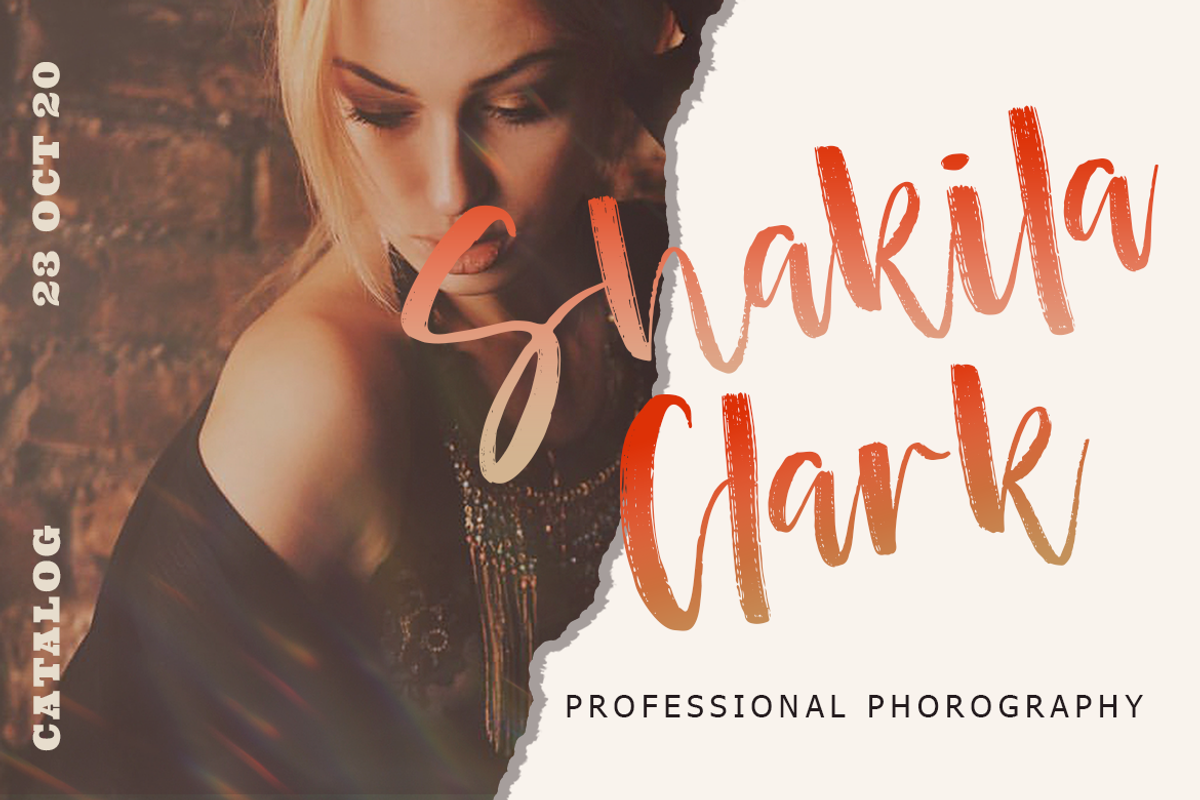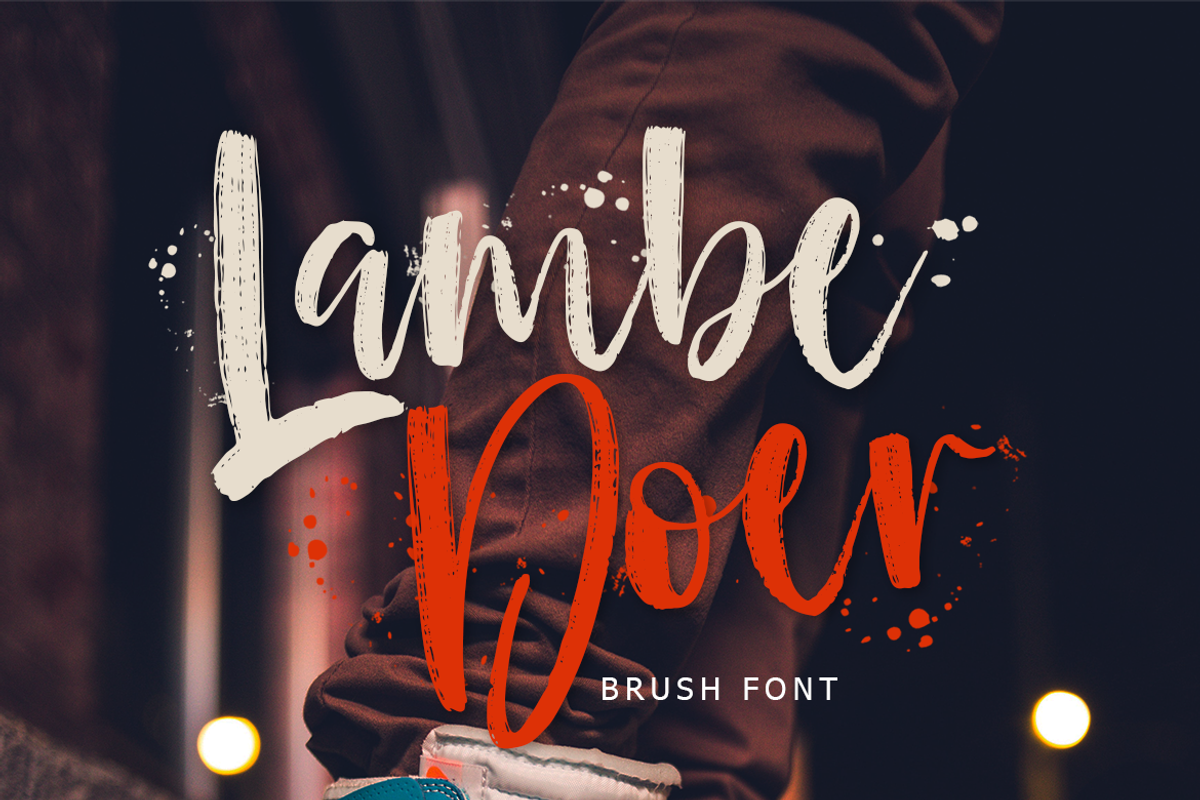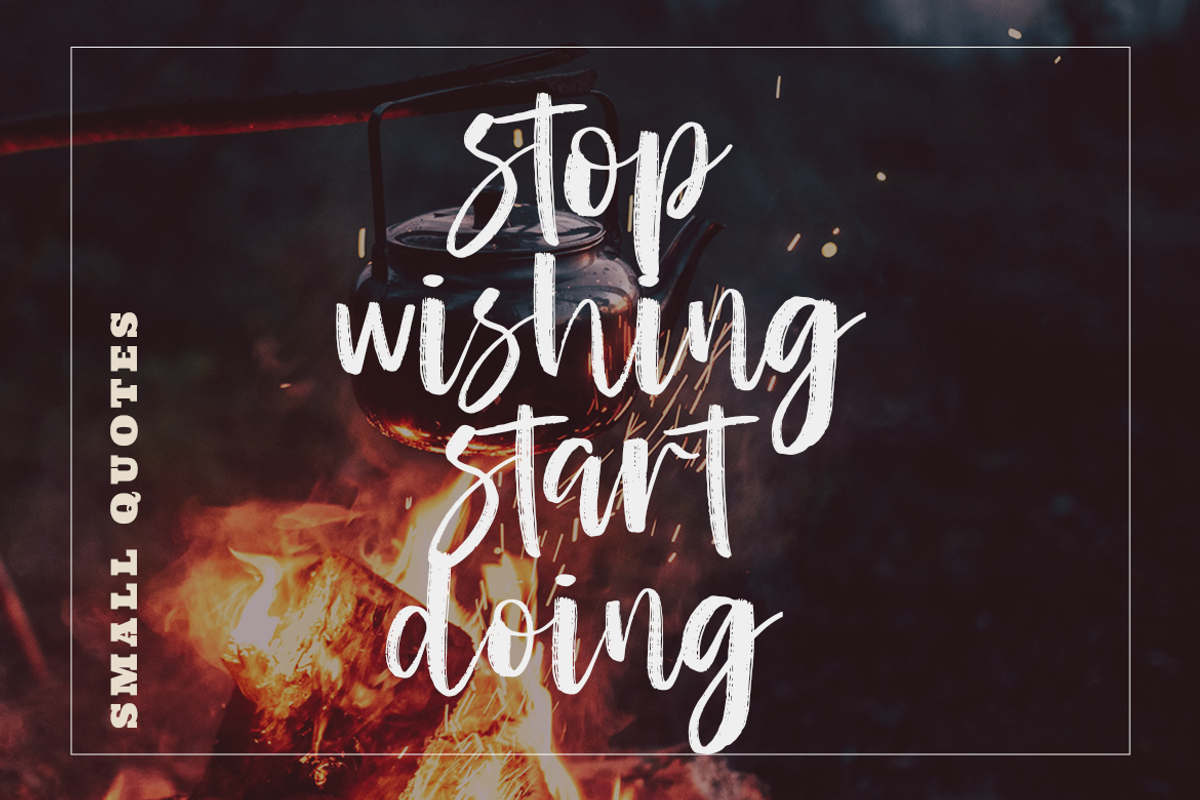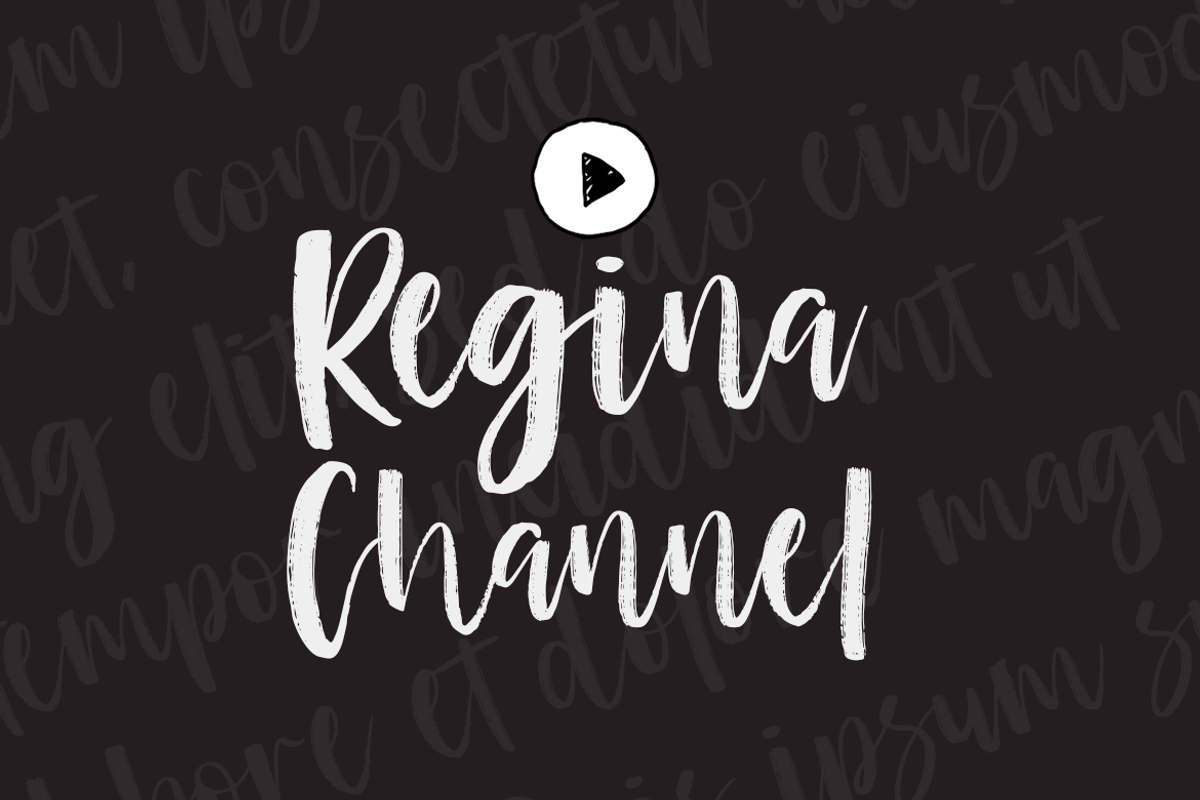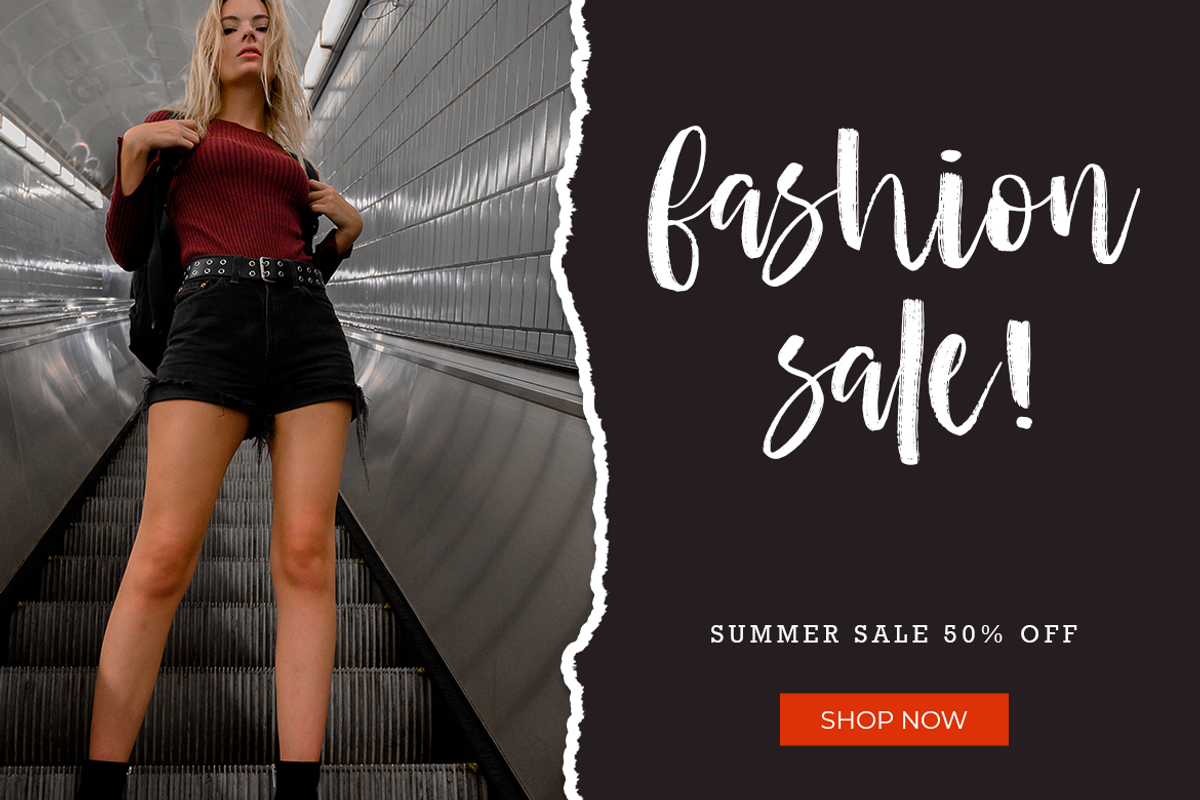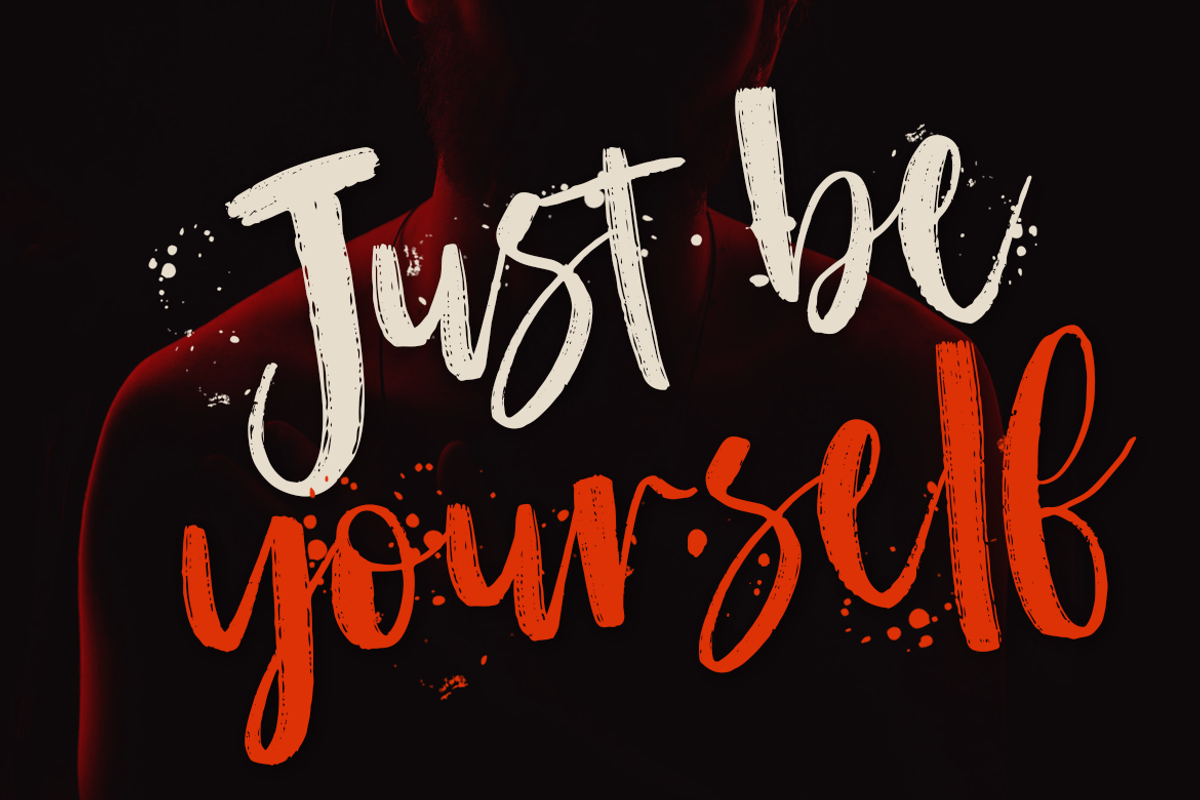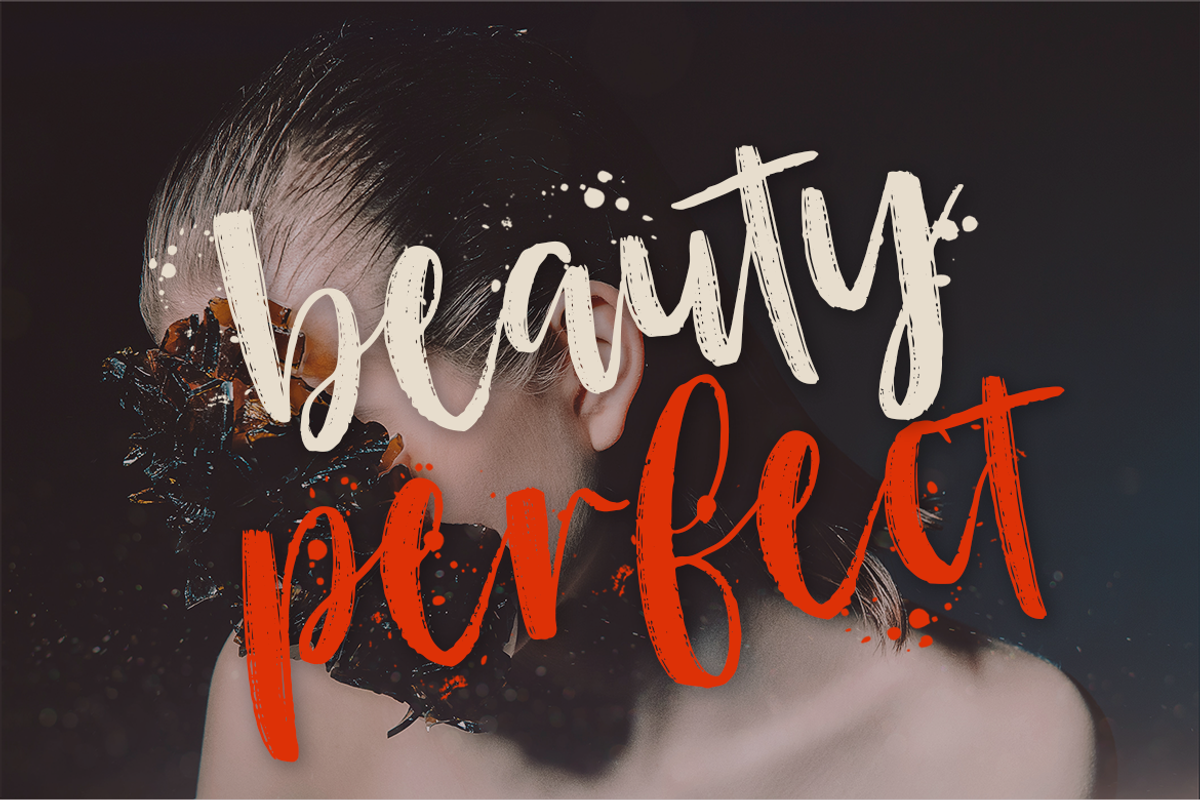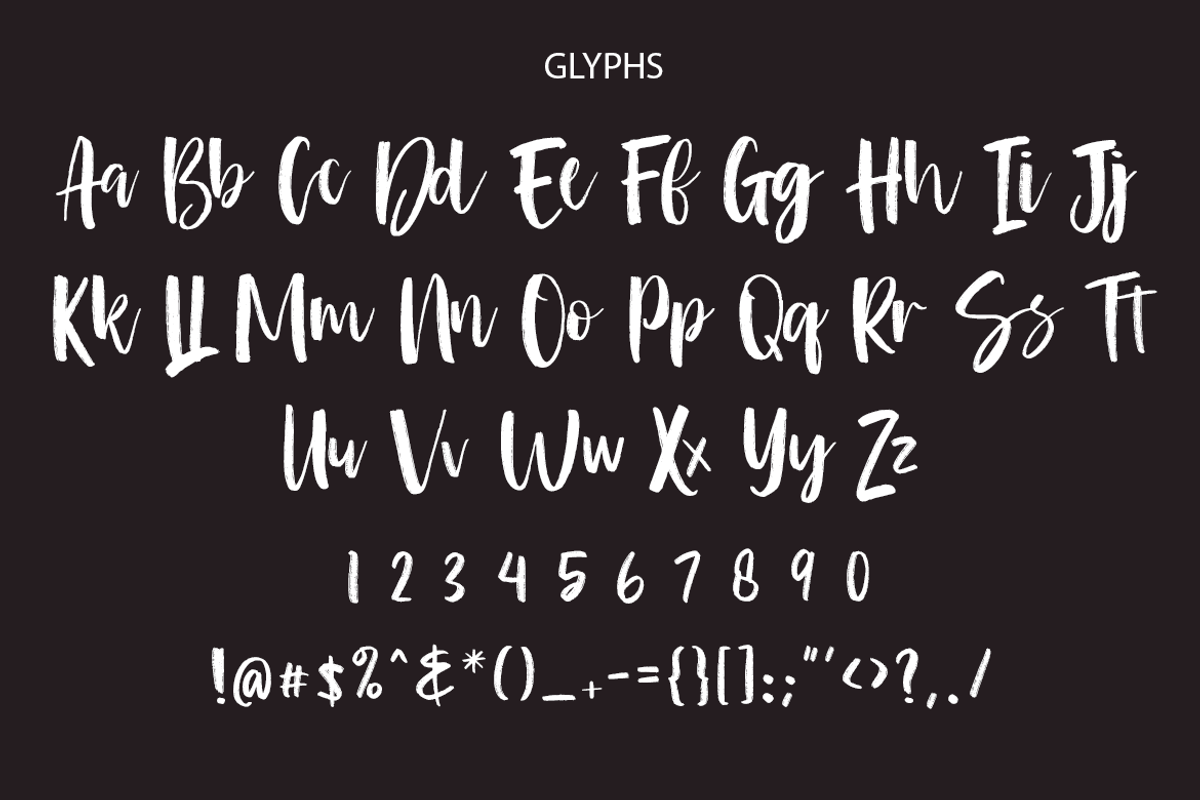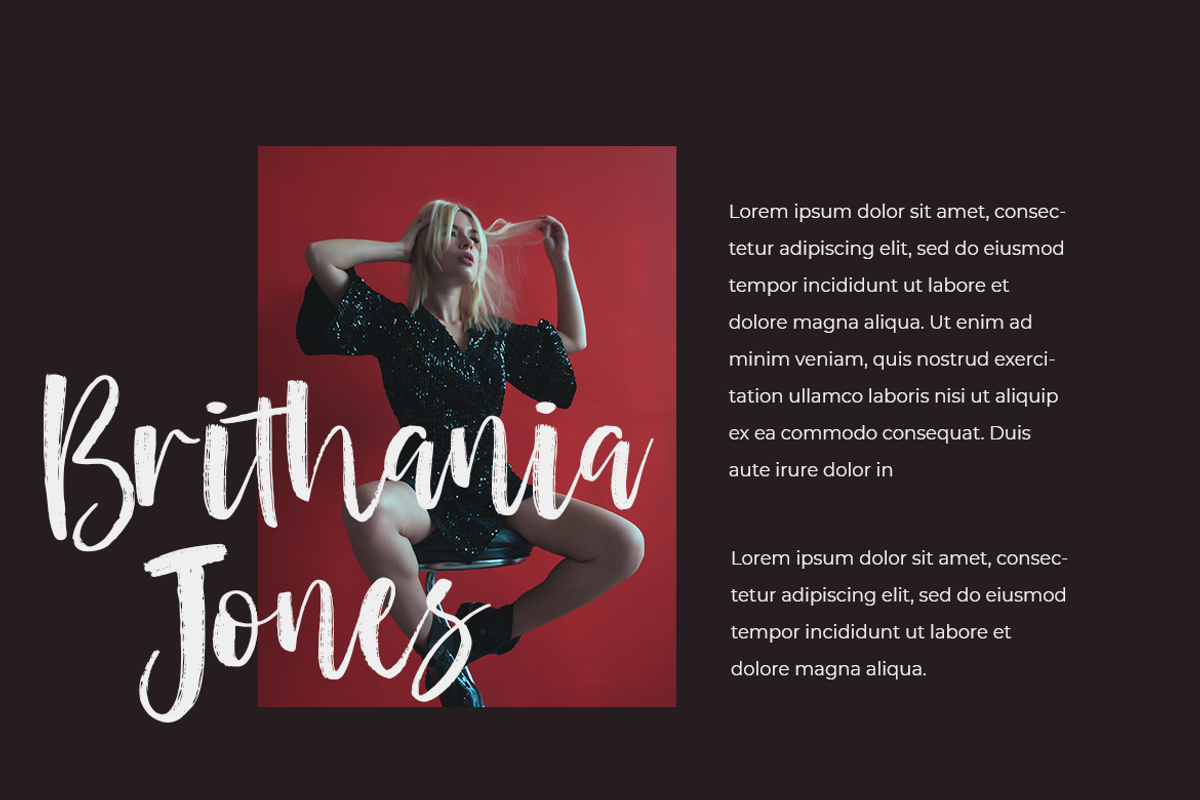
Lambe Doer
Lambe Doer Brush font is a Modern Script font can make your text appear elegant, luxurious, and modern!
Lambe Doer Brush font is perfect for branding projects, logo, banner designs, social media posts, advertisements, product packaging, tshirt design, product designs, label, photography, watermark, invitation, stationery and any projects.